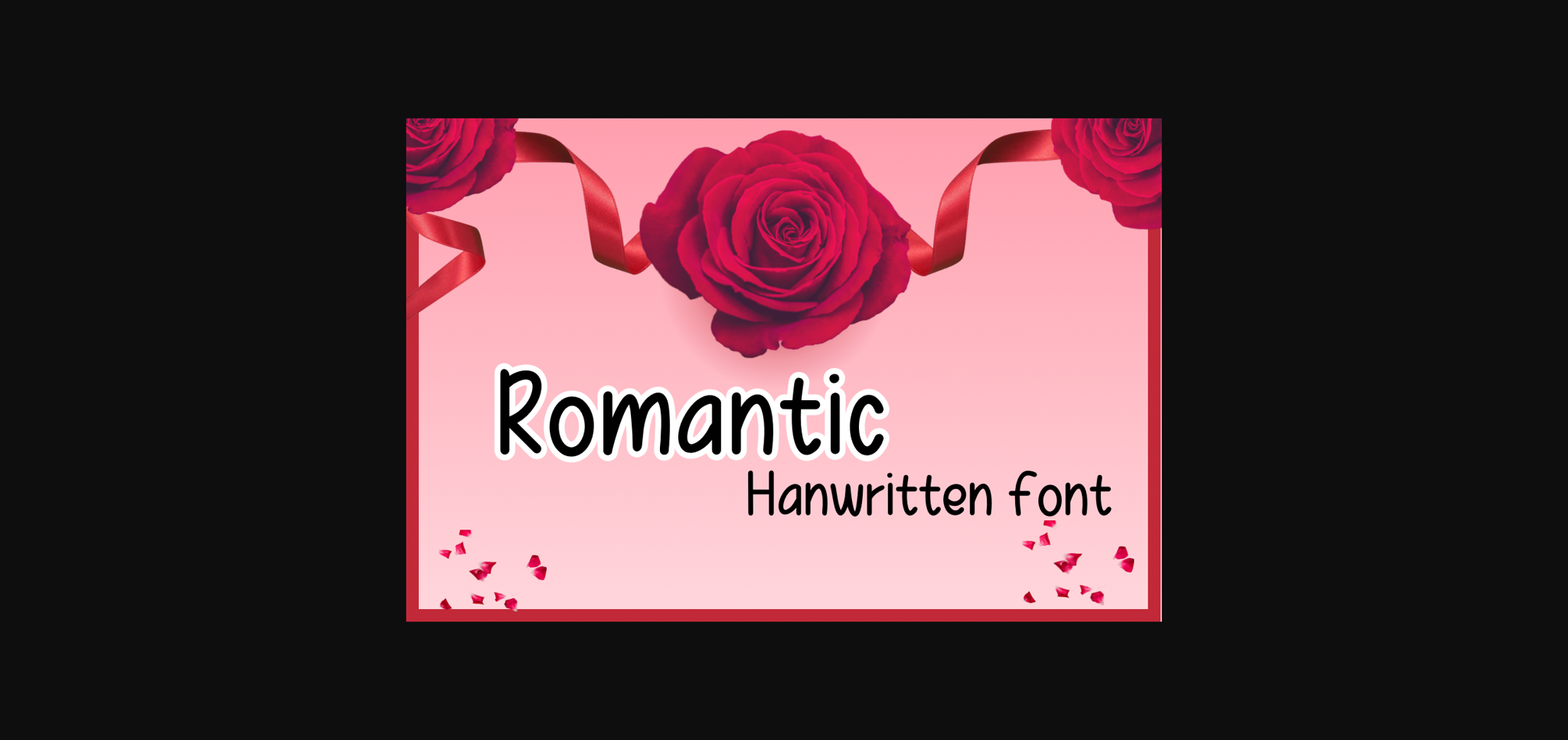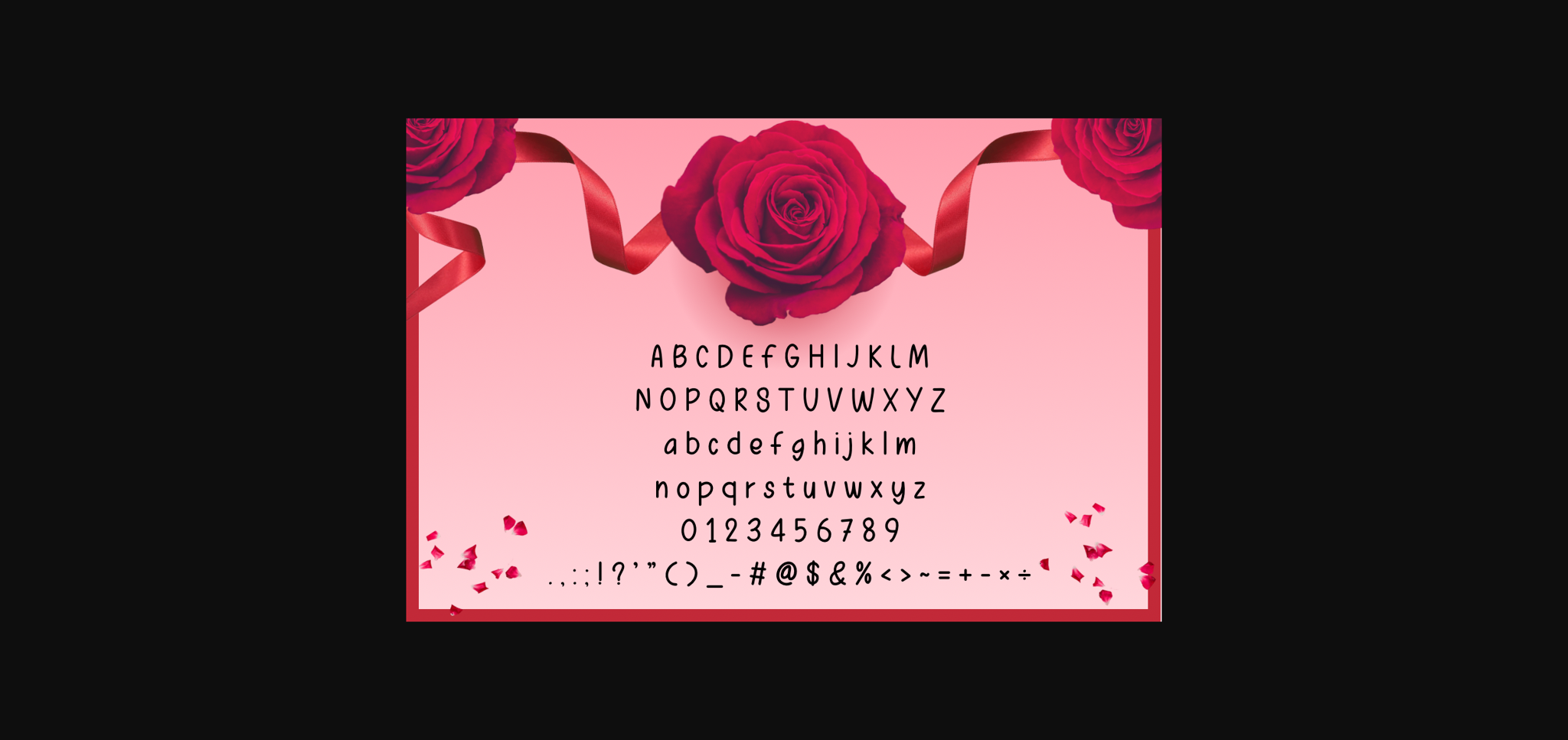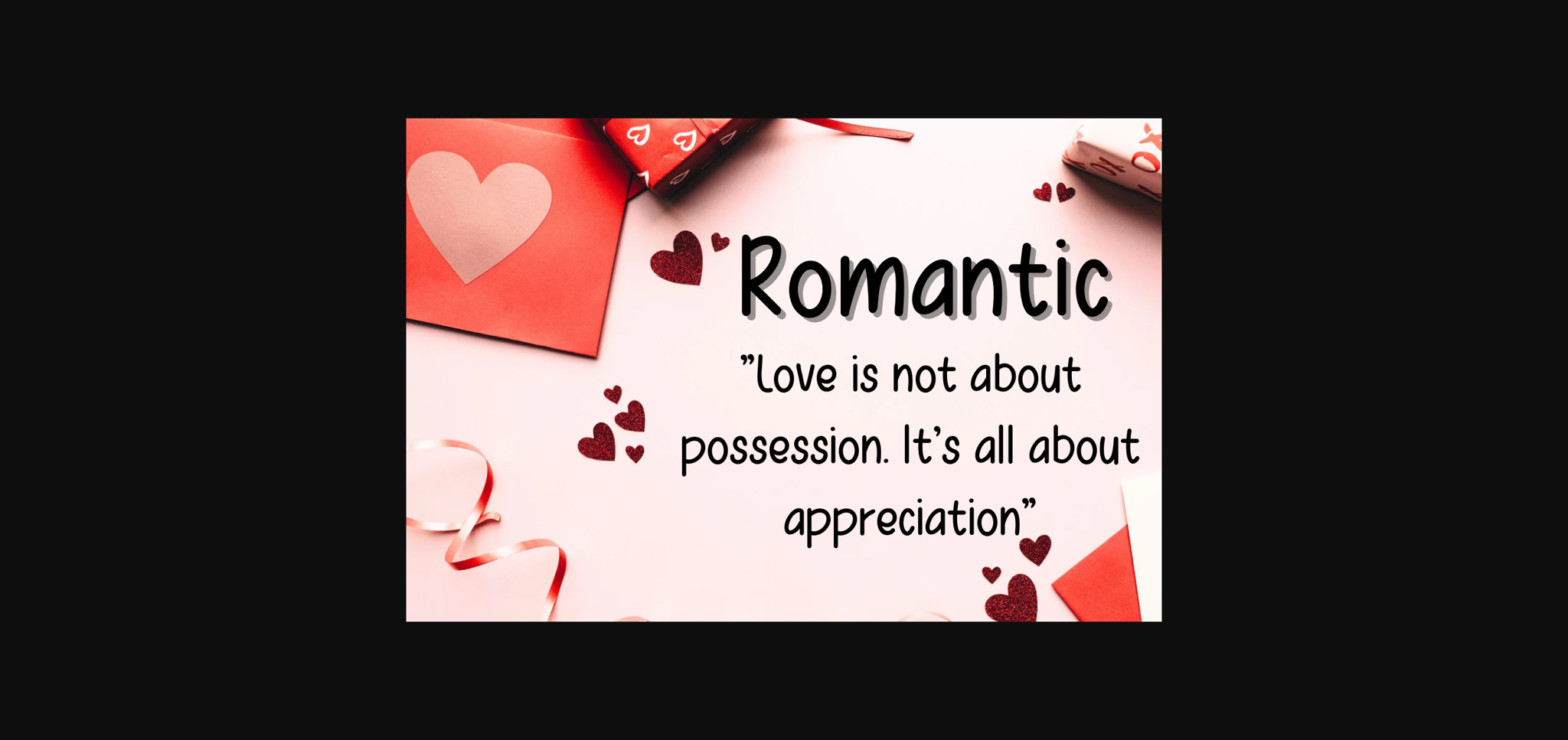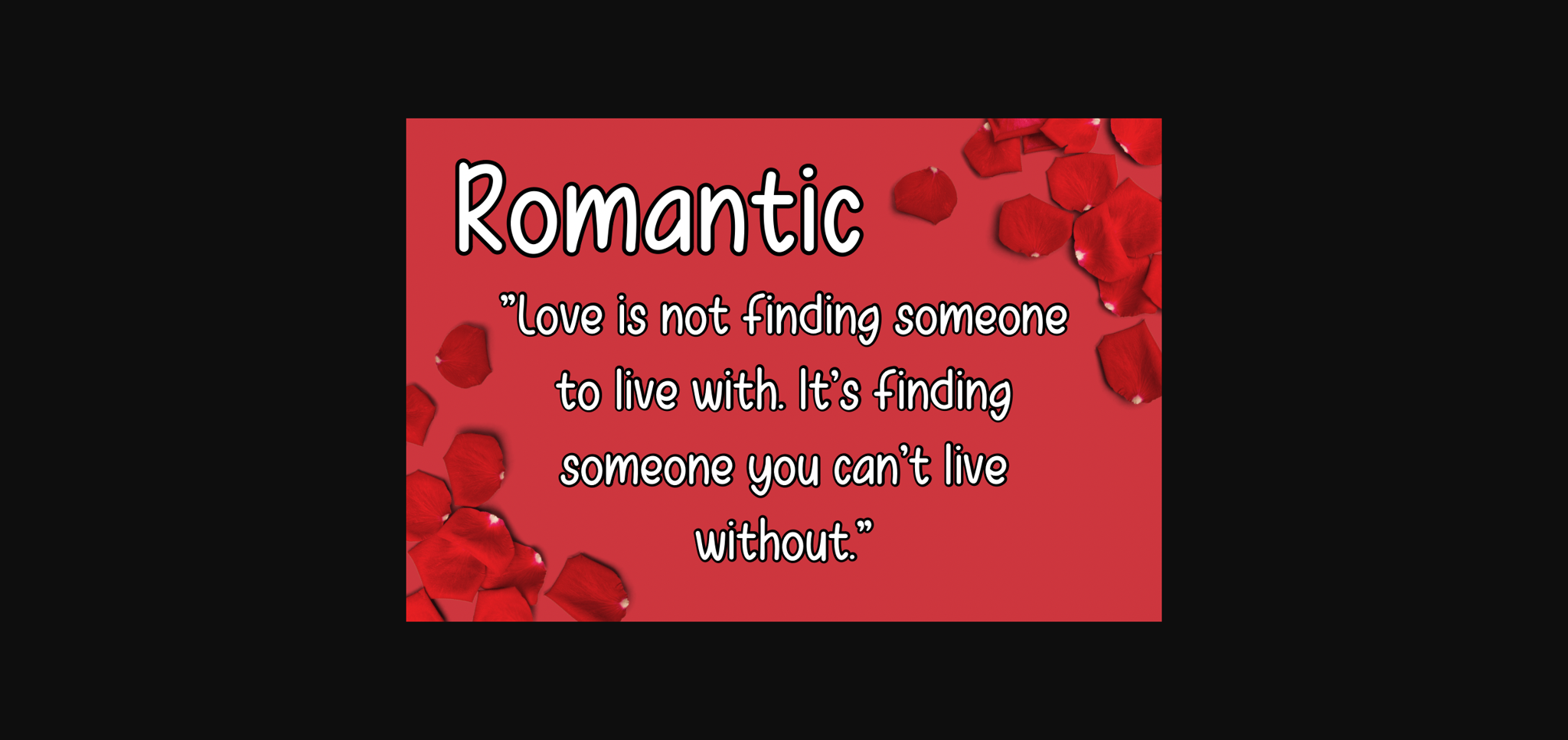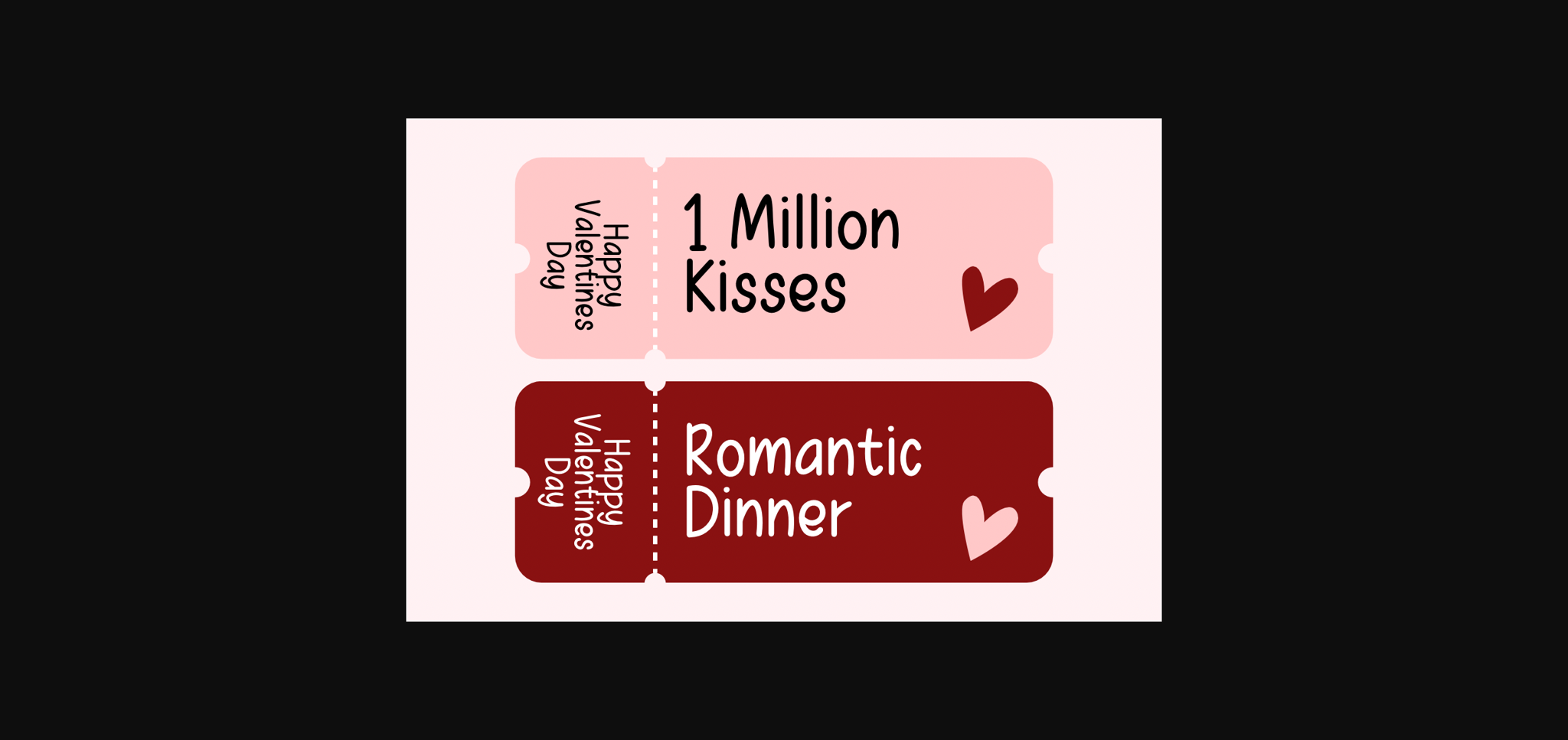
About Romantic Font
Romantic is a handwritten font. You can use it for taking notes, writing a diary or making greeting cards. However you can still use it for other designs such as banners content mugs cards shirts stationery social media posts and more!